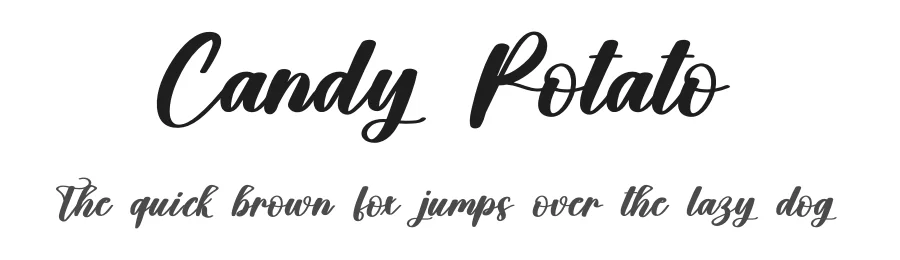
About Nanda Lovely Font
Nanda Lovely is a script & handwritten font designed by Bongkeng Art Studio. It includes 289 glyphs, a bold weight, TTF (TrueType) format, and 211 languages. Nanda Lovely is free to download; check the license details on this page before commercial use. Script & handwritten fonts like Nanda Lovely work best for wedding invitations, greeting cards, signatures, and elegant branding.
- Bold, Elegant, Flowing, Script
Nanda Lovely ships with 4 OpenType features you can switch on in apps that support them (Illustrator, InDesign, Affinity, Figma, CSS font-feature-settings).
Nanda Lovely Font is a script font that shines as a display or heading face. Pair it with a clean sans-serif or serif font for body text β the contrast creates a clear hierarchy while the two styles stay balanced and easy to read.